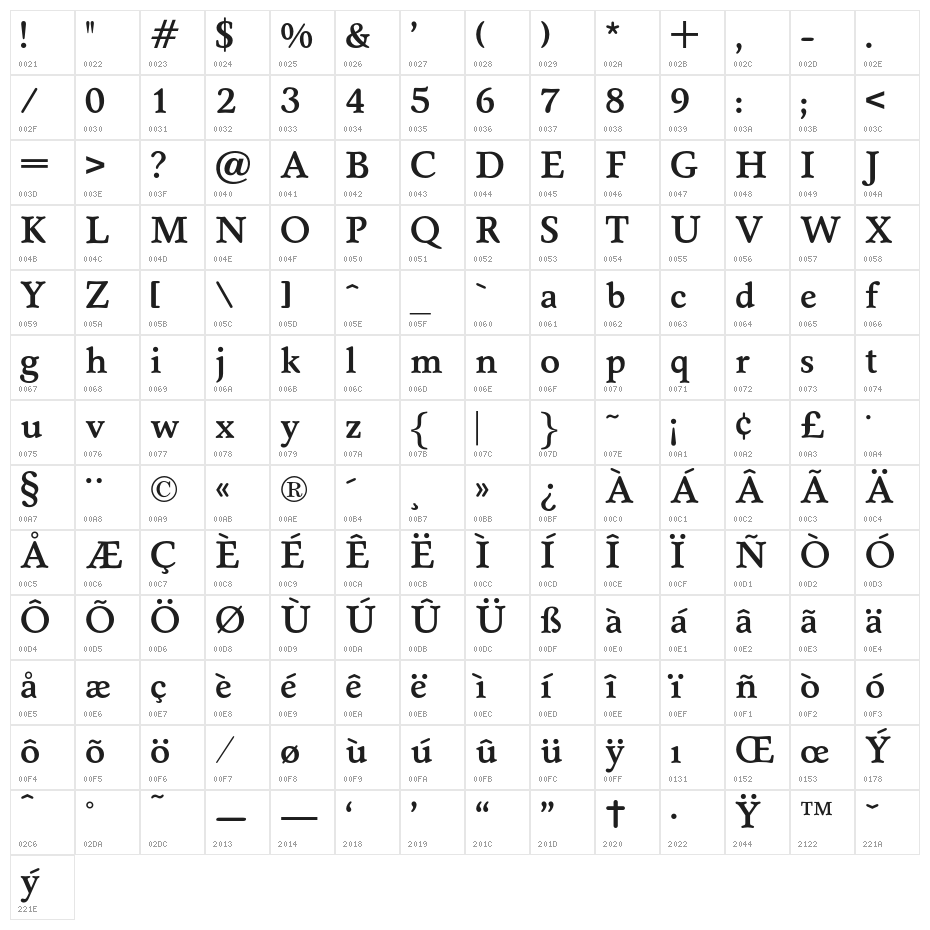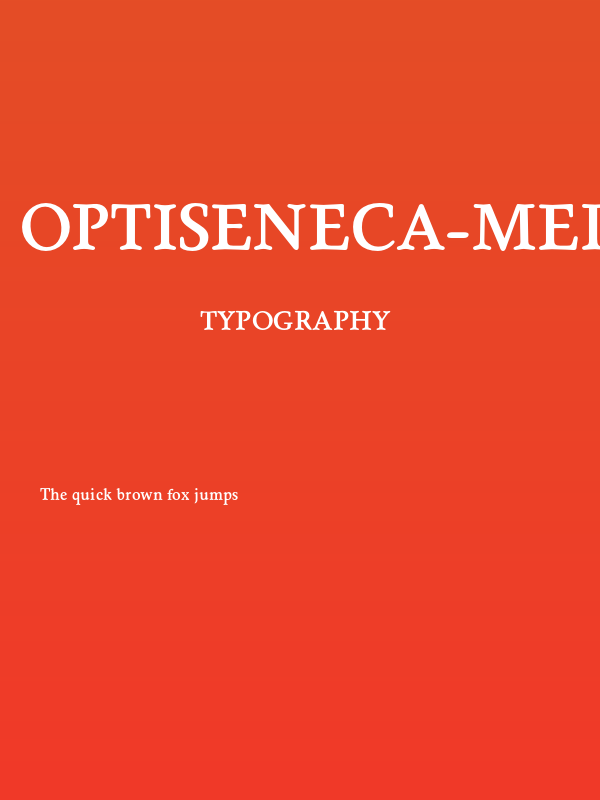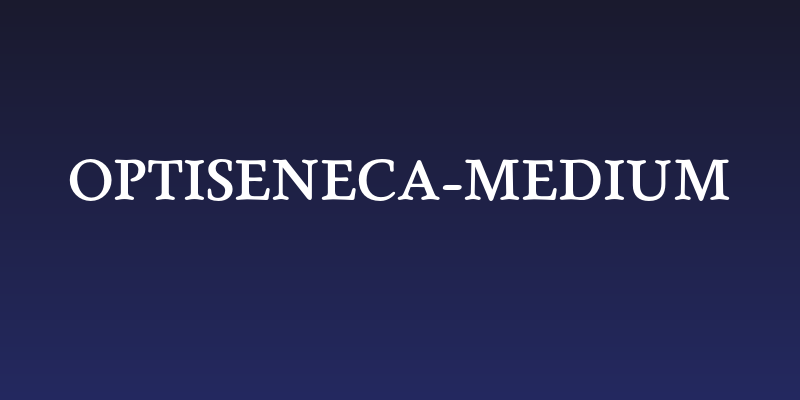
OPTISeneca-Medium Font
OPTISeneca-Medium Description
This font features a classic serif style with a balanced and elegant appearance. The uppercase letters are bold and commanding, while the lowercase letters maintain a smooth and readable flow. The numerals are distinct and well-proportioned, ensuring clarity in numerical data. Special characters are designed with the same attention to detail, making them suitable for a variety of applications. The overall design is timeless, making it versatile for both modern and traditional projects. The serifs are pronounced, adding a touch of sophistication, while the stroke contrast is moderate, providing a harmonious look.
| Proposed Projects | Ideal for editorial design, book covers, formal invitations, and branding materials. |